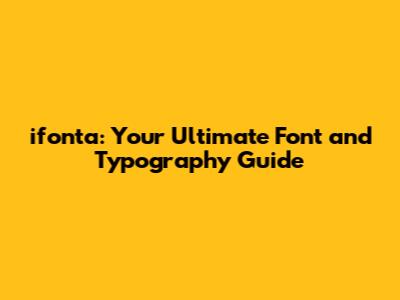
Hey guys! Ever wondered about the magic behind the fonts you see every day? Or maybe you're a designer looking to level up your typography game? Well, buckle up, because we're diving headfirst into the world of ifonta! This isn't just about choosing pretty fonts; it's about understanding the art and science of typography, how it impacts your work, and how you can use it to create something awesome. So, let's break down everything you need to know about fonts, typography, and how ifonta can be your secret weapon.
What is ifonta, and why is it important?
So, what exactly is ifonta? Think of it as your ultimate resource for everything related to fonts and typography. It's a platform, a guide, and a community all rolled into one. And the reason it's so important? Well, in today's visually driven world, typography is more crucial than ever. It's not just about making text readable; it's about conveying a message, setting a mood, and making your content pop! Whether you're a blogger, a marketer, a graphic designer, or just someone who appreciates good design, understanding ifonta and its principles can seriously elevate your work.
The Power of Typography
Typography is the art and technique of arranging type to make written language legible, readable, and appealing when displayed. It's much more than just picking a font; it's about making deliberate choices about font size, line spacing, kerning (the space between individual letters), leading (the space between lines of text), and more. These choices have a huge impact on how your audience perceives your content. A well-designed typographic layout can draw readers in, make information easy to digest, and create a strong visual identity. On the flip side, poor typography can confuse, alienate, and make your content look amateurish. So, if you want to make a lasting impression, you've got to understand the power of typography.
ifonta as Your Resource
ifonta provides a wealth of resources to help you master typography. From font pairing guides and tutorials on design principles to a vast library of fonts and expert advice. It's your one-stop shop to all your typographic needs. They provide tools, tips, and inspiration to help you create stunning designs. It’s like having a team of typography experts at your fingertips. If you're a beginner, don't sweat it! ifonta offers tons of beginner-friendly content, from basic tutorials to easy-to-understand explanations of typography terms. And if you're a seasoned pro, you'll find plenty of advanced techniques and resources to take your skills to the next level. Ready to see the world of fonts?
Diving Deeper: Key Concepts in Typography
Alright, let's get into some of the key concepts that will help you understand ifonta and its practical application. We're going to cover some fundamental principles, so you can start making informed decisions about fonts and typography.
Font Families
First up, let's talk about font families. A font family is a group of fonts that share a similar design but come in different weights, styles, and widths. Common font families include Serif, Sans-Serif, Monospace, and Display. Each family has its own unique characteristics and is best suited for different purposes. For instance, Serif fonts (like Times New Roman and Georgia) are known for their small strokes at the end of each letter and are often used for body text because they're generally considered easier to read in large blocks. Sans-serif fonts (like Arial and Helvetica) lack those strokes and tend to have a more modern and clean look. They're great for headlines, headings, and digital displays. Monospace fonts (like Courier New) have letters with the same width, which makes them perfect for code and technical documents. Display fonts are more decorative and attention-grabbing, making them ideal for titles, logos, and special occasions.
Font Weight and Style
Within each font family, you'll find different weights and styles. Font weight refers to the thickness of the characters, ranging from light to bold. Font style refers to variations like italic, bold italic, and underlined. Choosing the right weight and style can significantly impact the visual hierarchy of your text. You might use bold text for headings to make them stand out, italic text for emphasis or to indicate a foreign word, and regular weight for body text. Careful use of weight and style helps guide the reader's eye and makes your content more engaging.
Font Pairing
Font pairing is the art of combining different fonts to create a visually harmonious and effective design. Matching two fonts is like finding the perfect outfit, and when they work well together, they enhance each other. Choosing the right font pairings can be tricky, but ifonta can really help you! There are a few different approaches you can take. One common method is to pair a serif font with a sans-serif font. Another is to pair fonts that share similar characteristics, such as a tall and narrow font with another tall and narrow font. The key is to create contrast and balance while maintaining readability. Using ifonta’s guide can really help you get started.
ifonta in Action: Practical Tips and Tricks
Alright, enough with the theory! Let's get down to some practical tips and tricks you can use to apply ifonta and make your typography sing. We're going to cover some actionable steps you can take to make your text look its best.
Choosing the Right Font
One of the most important steps in typography is choosing the right font for your project. Think about the message you want to convey and the audience you're trying to reach. Do you want to project a sense of professionalism, playfulness, or sophistication? Different fonts evoke different emotions. For example, a classic serif font might be perfect for a law firm's website, while a bold sans-serif could be great for a tech startup. Also, consider the readability of the font, especially if you're designing for a large body of text. Always test how the font looks in different sizes and on different devices to make sure it's clear and legible. With all of that combined, you will create a beautiful design.
Creating Visual Hierarchy
Visual hierarchy is the arrangement of elements in a design to guide the reader's eye and indicate the importance of different pieces of information. This is where font size, weight, and style come into play. Use larger font sizes, bolder weights, and contrasting colors for headings and subheadings to make them stand out. Use different sizes, weights, and styles for body text to create a more engaging layout. Experiment with whitespace (the empty space around your text) to give your design breathing room and make it less cluttered. The goal is to make it easy for your reader to scan the page and quickly understand the key takeaways.